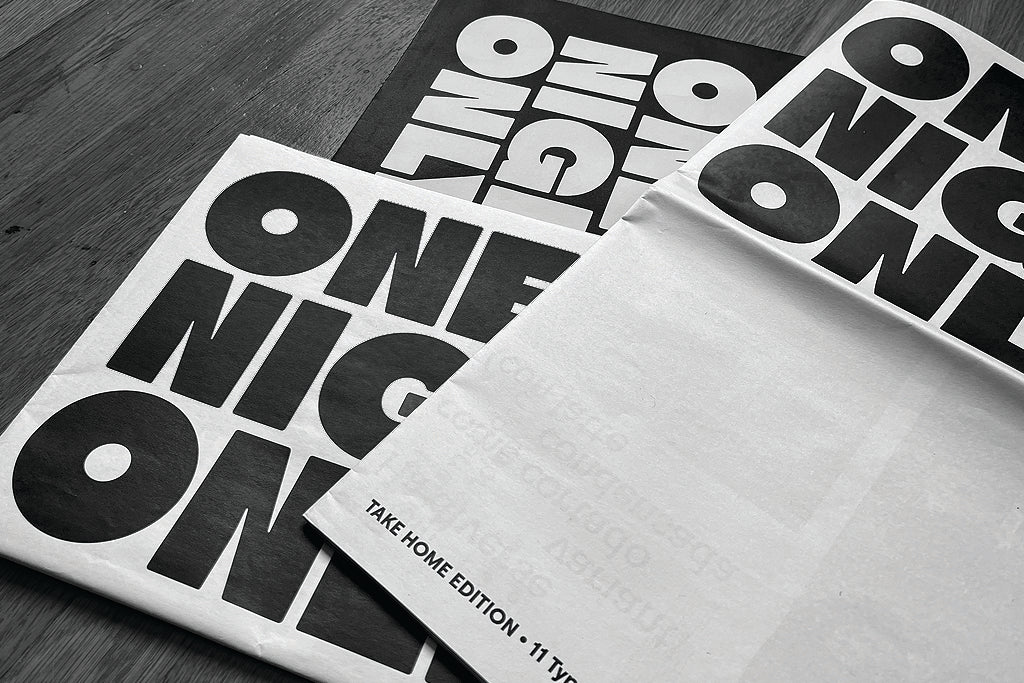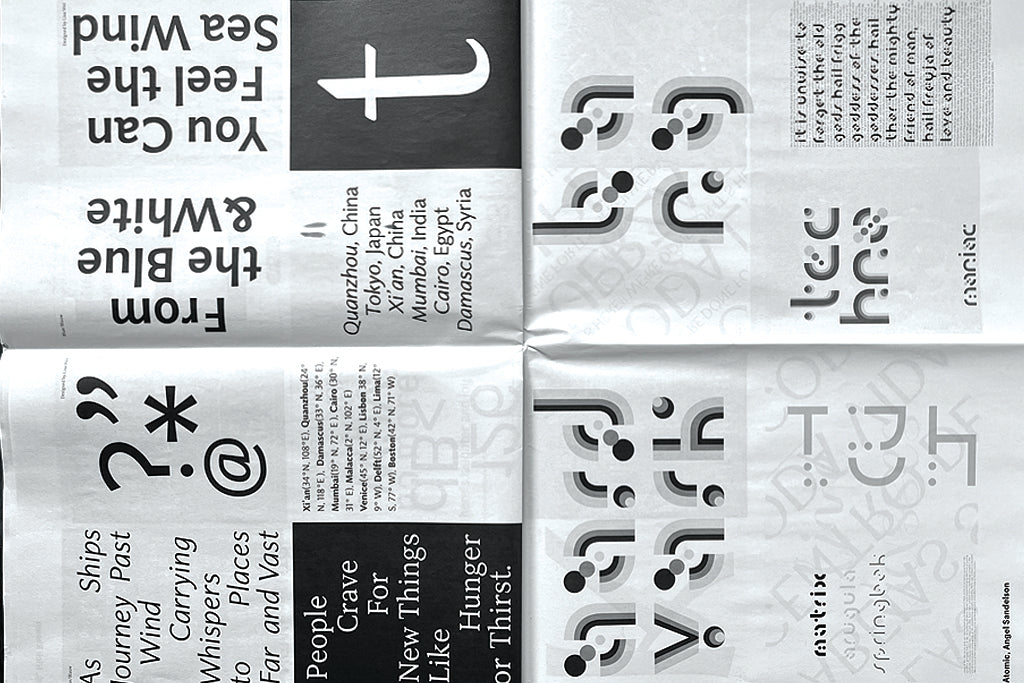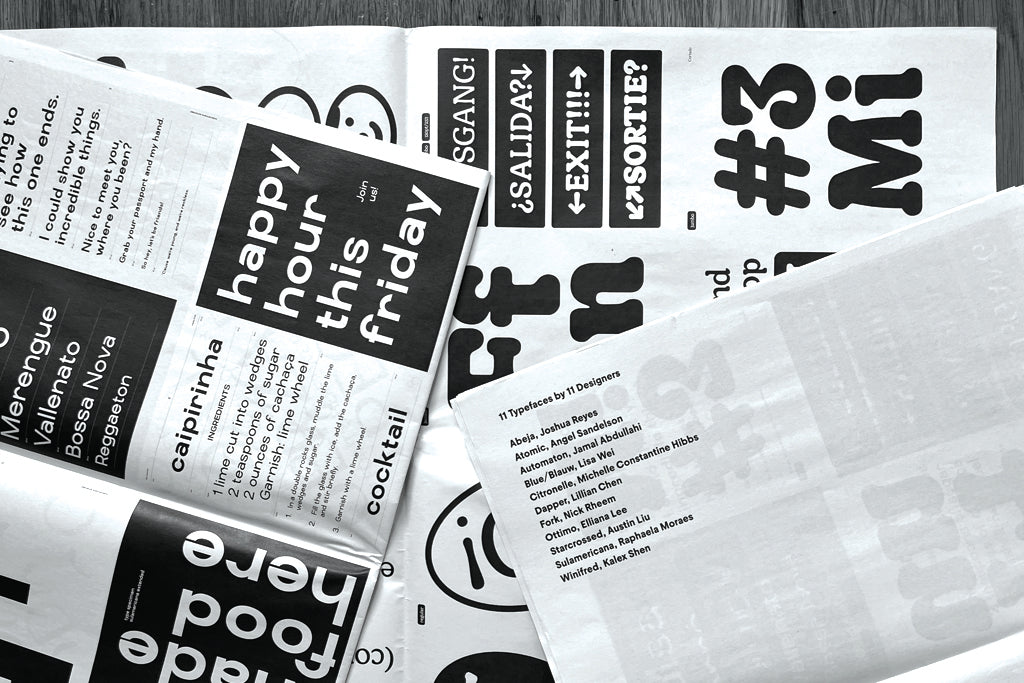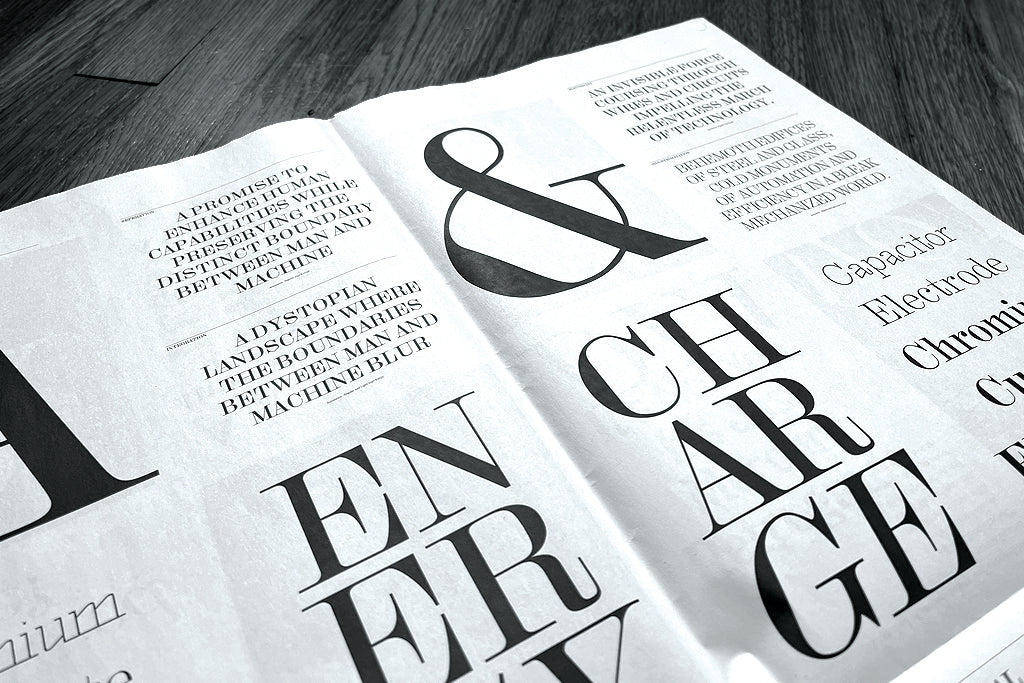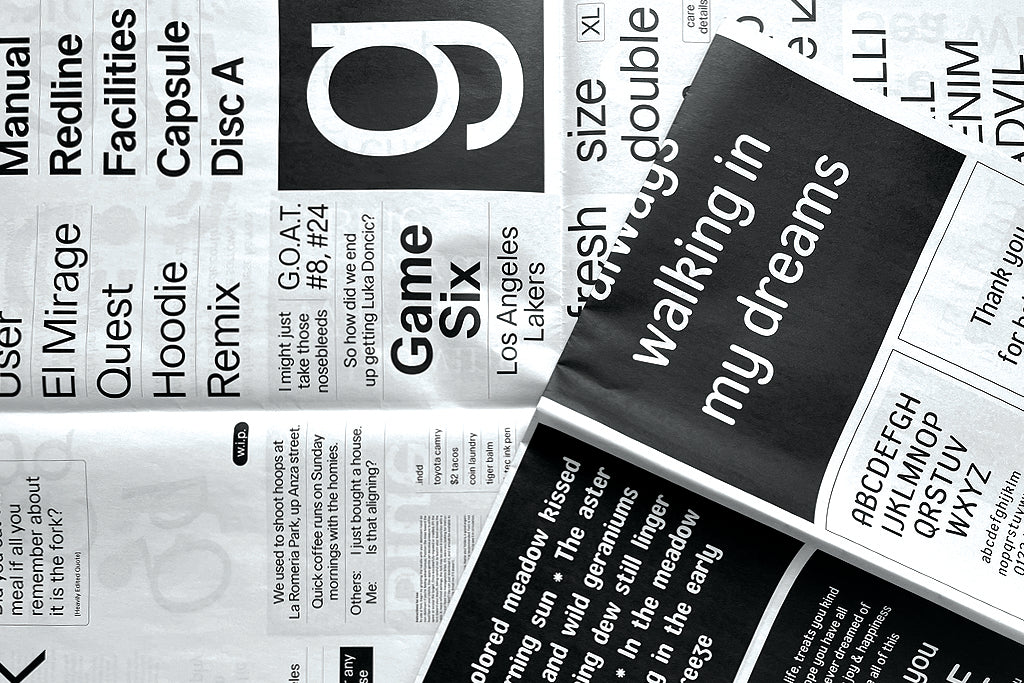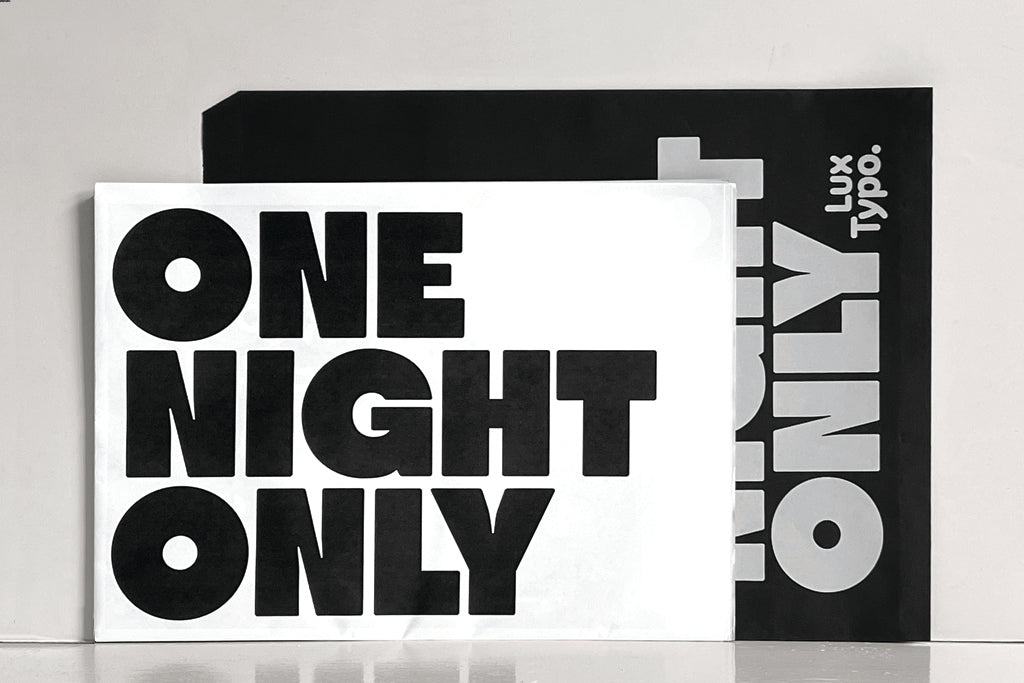
One Night Only Take Home Edition
The newspaper is the ’take away’ from 'One Night Only’, the type pop-up event hosted by LuxTypo. The 24 page broadside features the typefaces from ArtCenter Font Design taught by Greg Lindy. In total, there are 11 typefaces by as many designers. The fonts range from experimental to text styles. Each spread is a type specimen designed by the designer giving insights into the inspiration of their respective typefaces.